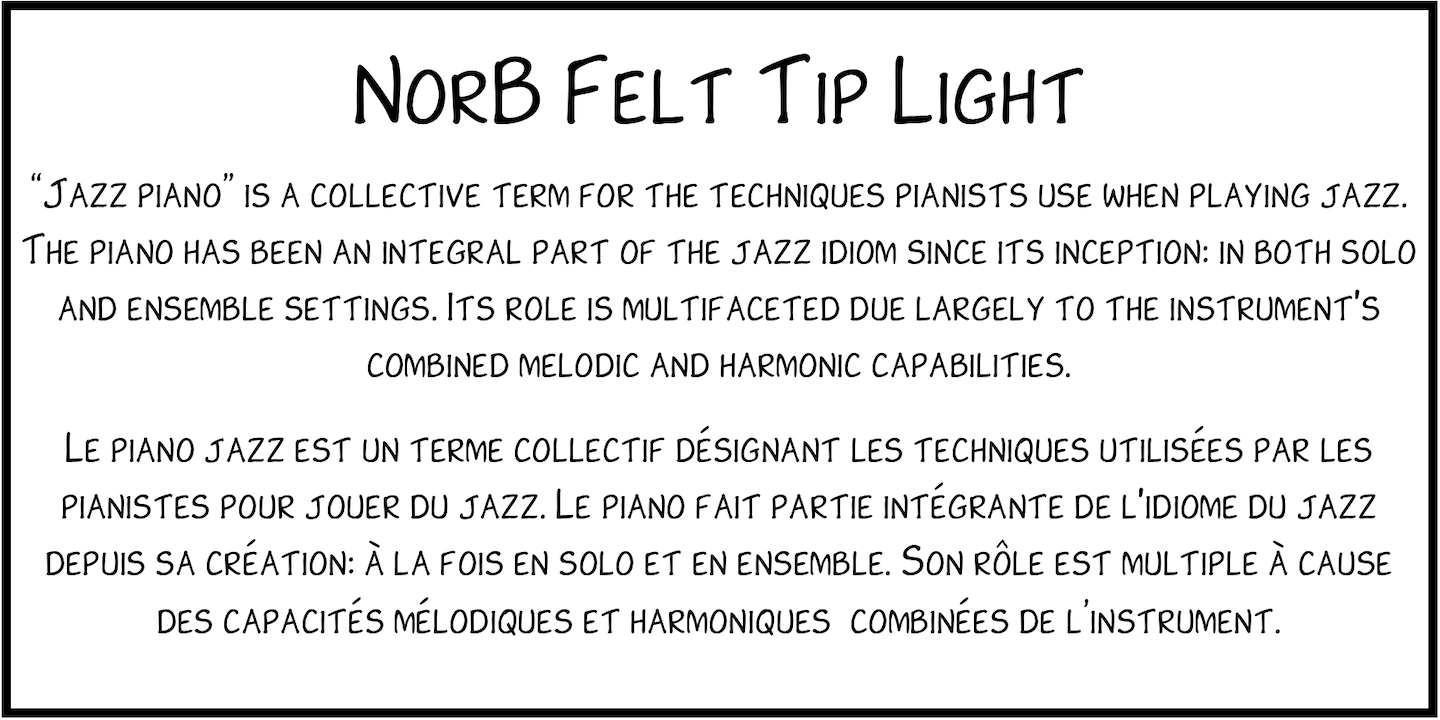
NorB Felt Tip Font is perfect for handwritten quotes, artistic posters, creative workshop branding, craft store signage, art supply packaging, sketch book covers, creative agency portfolios, indie music album covers, artisan product labels, and authentic social media content.
What makes NorB Felt Tip Font so exciting is its authentic hand-drawn character that perfectly captures the organic texture and spontaneous energy of real felt-tip marker writing. This distinctive display typeface features natural stroke variations, realistic marker textures, and genuine imperfections that create an immediate sense of creativity and artistic authenticity, making it the ideal choice for brands that value handcrafted originality.
The NorB Felt Tip Font family includes regular, bold, and brush variations, along with decorative flourishes, artistic doodles, and marker-style ornaments. Each style maintains the font's signature handmade quality while providing designers with versatile options for creating genuinely artistic communications.
Whether you're designing for art studios or creative freelancers, NorB Felt Tip Font Free Download brings authentic artistic flair to every project. The font's carefully preserved marker textures ensure that digital designs maintain the tactile quality and personal touch that audiences crave in our increasingly digital world.
This artistically crafted typeface works beautifully across both print and digital media. The NorB Felt Tip Font maintains its handmade charm whether used in large headlines or smaller applications, making it perfect for brands that want to communicate creativity, authenticity, and artistic passion.
Add genuine artistic soul to your designs with NorB Felt Tip Font and experience typography that feels like it was created by a talented artist's own hand.